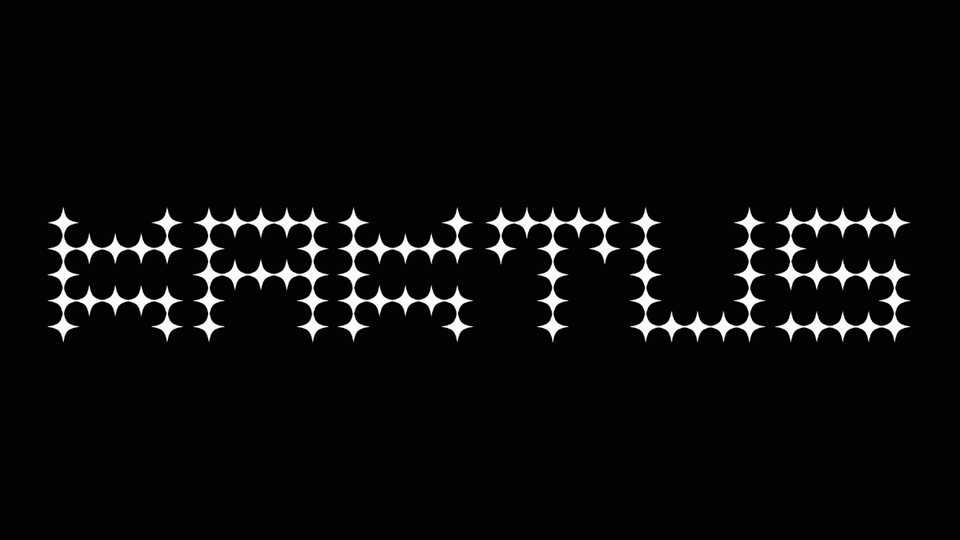
Download Kaktus font, a creative display typeface based on the sharp geometric forms. It perfectly fits for posters, unique typographic projects and other artworks.
Designer: Luca Ricci